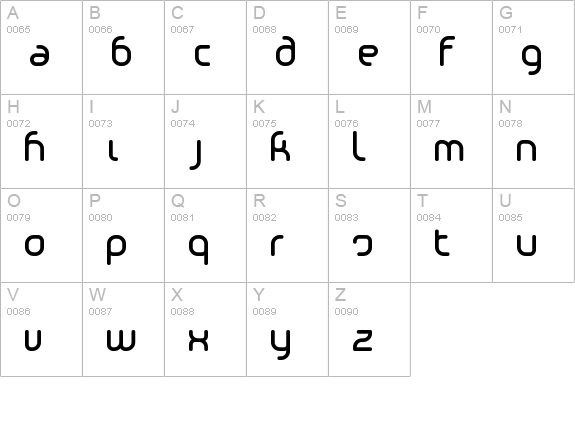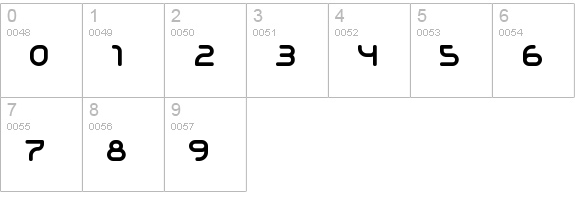
Phino Tight Font Details
Phino Tight font is a stunning display font that will add a touch of elegance and sophistication to any design project. With its sleek and modern letterforms, this font is perfect for creating eye-catching headlines, logos, and branding materials. The unique and distinctive characteristics of Phino Tight font make it stand out from the crowd. Its clean lines and refined curves give it a timeless appeal that is both contemporary and classic. Whether used in print or digital media, this font will captivate your audience and leave a lasting impression. One of the best things about Phino Tight font is that it is free! Yes, you read that right. This amazing font is freely available to download at FontsMarket.com. Now you can enhance your designs without having to worry about breaking the bank. With Phino Tight font, you can create professional-looking projects without spending a dime. So why wait? Go ahead and unleash your creativity with Phino Tight font. Download it today from FontsMarket.com and start transforming your designs into works of art. Whether you're a graphic designer, a blogger, or a business owner, this font is a must-have in your toolkit. Get ready to impress with Phino Tight font.